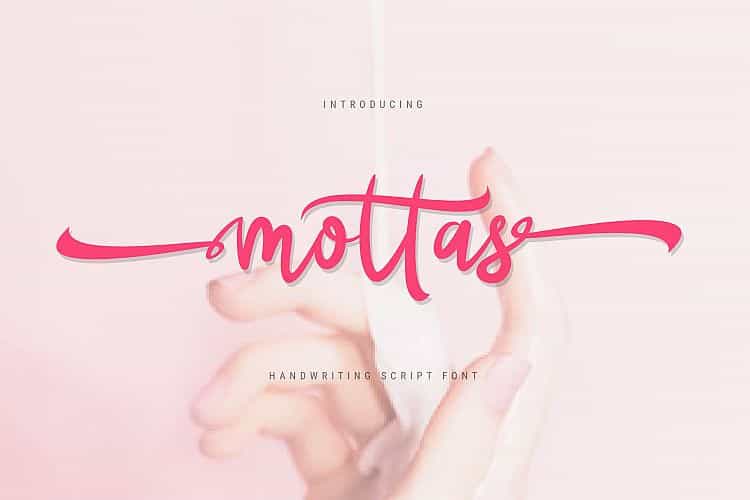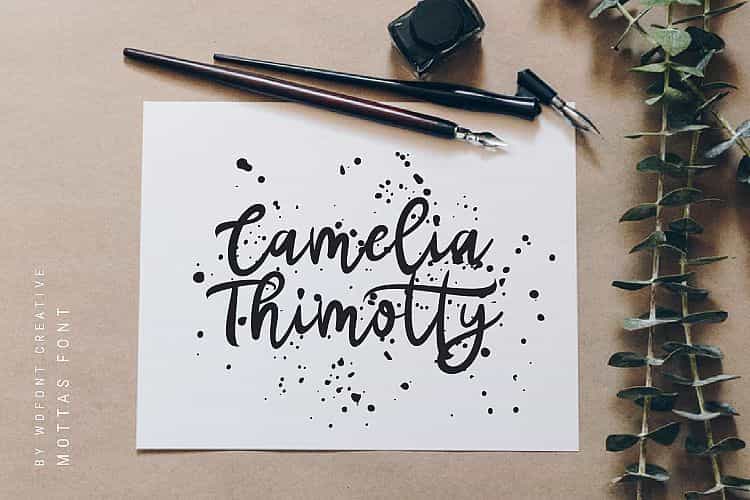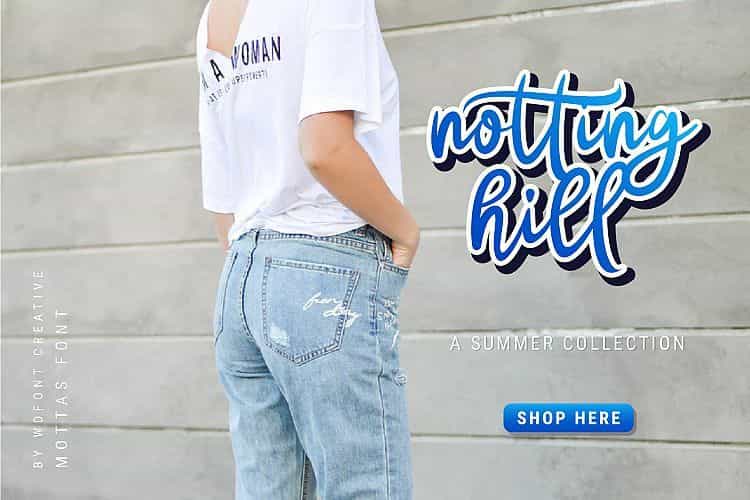
Mottas Script Font a new fresh & modern script with a handmade calligraphy style, decorative characters and the dancing baseline!So you can use this font in the invitations like greeting cards, branding materials, business cards, quotes, posters and more.